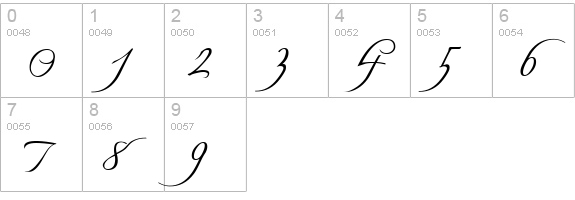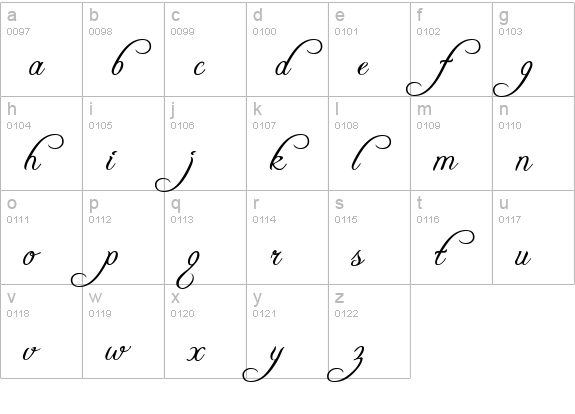
Freebooter Script Font Details
Introducing Freebooter Script font, a captivating and elegant typeface perfect for adding a touch of sophistication to your designs. This unique script font features graceful curves and stylish flourishes that exude charm and personality. With its free-spirited and artistic vibe, Freebooter Script is ideal for a wide range of creative projects, from wedding invitations to branding materials. What sets Freebooter Script font apart is its seamless fluidity and effortless readability, making it a versatile choice for both print and digital applications. Whether you're designing a logo, crafting a poster, or creating social media graphics, this font will elevate your work with its timeless appeal. Best of all, Freebooter Script font is freely available to download at FontsMarket.com, allowing you to access this stunning typeface with ease. Don't miss out on the opportunity to enhance your designs with the beauty and elegance of Freebooter Script font. Elevate your typography game and make a lasting impression with this exquisite font today!